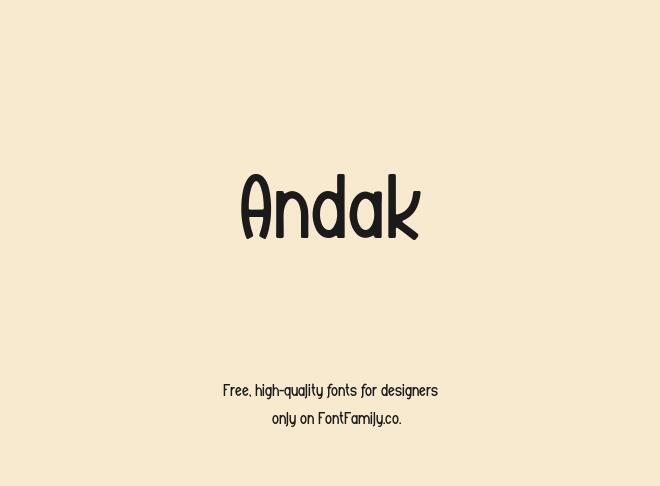
Andak Font
Andak Font is a unique and rustic handwritten typeface, designed by Andak Creative. With its playful and decorative style, it brings an authentic and charming touch to any design project. It is characterized by its irregular contours, which resemble natural handwriting, making it perfect for logos, invitations, stationery, and social media posts. Compared to other fonts, Andak Font stands out for its unique charm and personalized feel. It's an excellent choice for designers who want to infuse a touch of rustic charm and playful creativity into their designs. Being free for personal use, Andak Font is a must-have addition to any designer's toolkit.